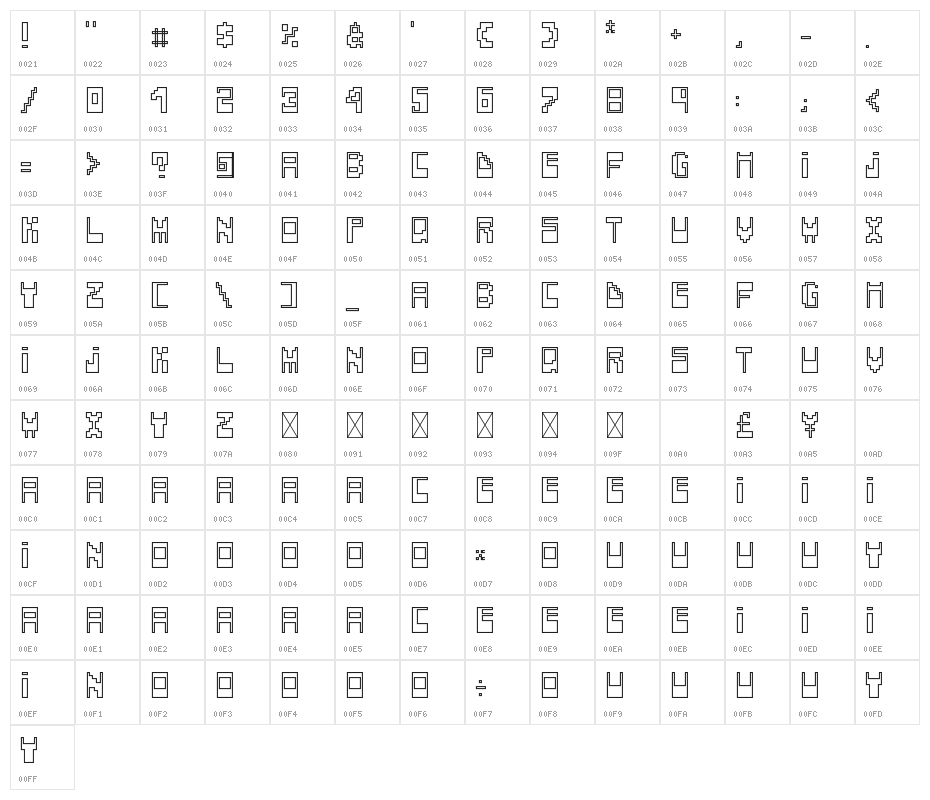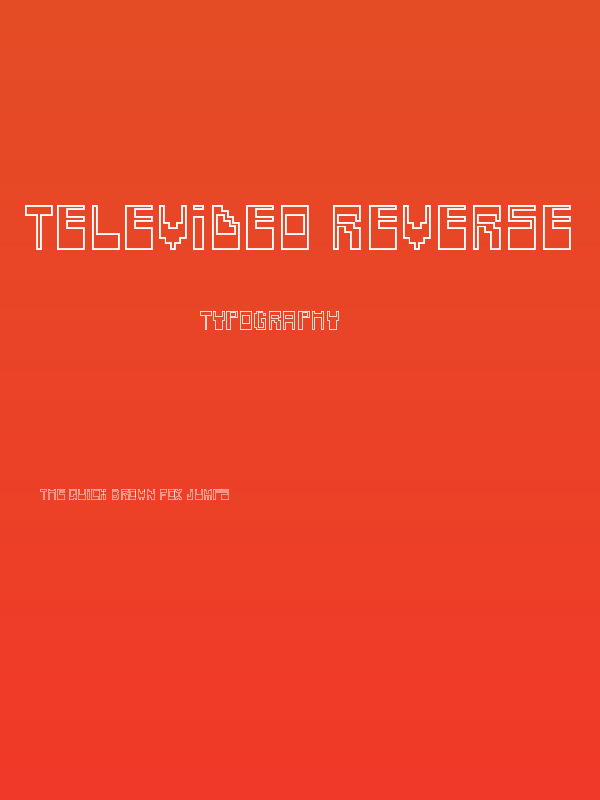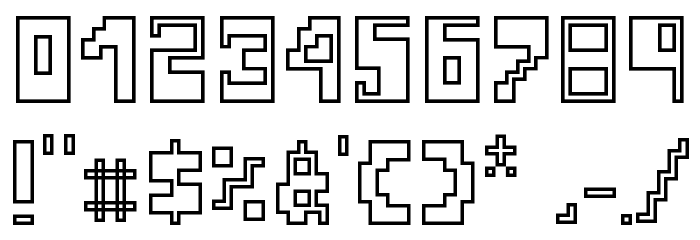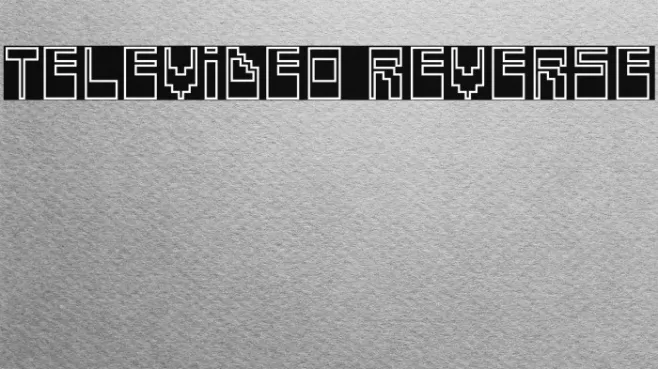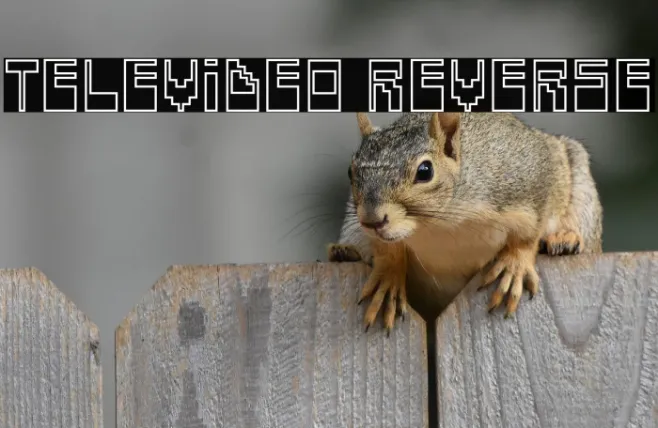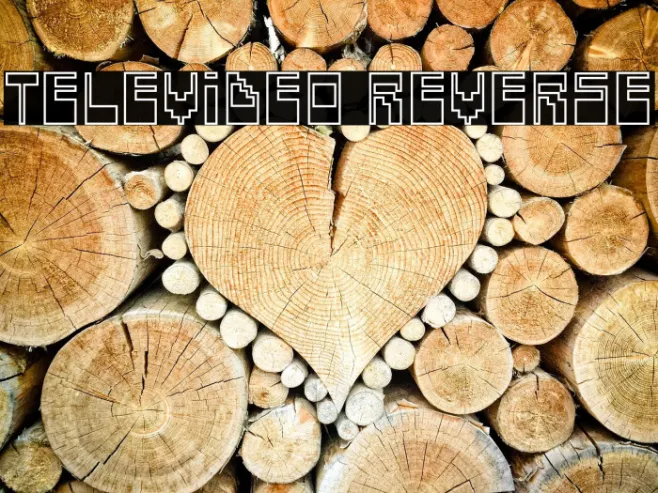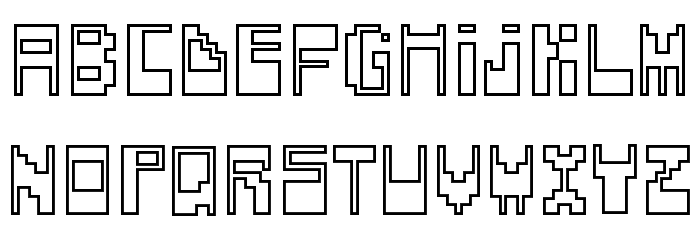
Televideo Reverse Font
Televideo Reverse Description
This font features a distinct, retro digital style reminiscent of early computer graphics and video game aesthetics. Each character is constructed with a pixelated, blocky outline that gives it a unique, geometric appearance. The uppercase and lowercase letters maintain a consistent height, contributing to a uniform look across the text. Numbers and special characters follow the same design principles, ensuring a cohesive visual experience. The font's design is bold and eye-catching, making it ideal for projects that require a vintage or tech-inspired theme. Its clear, structured form ensures readability while adding a touch of nostalgia.